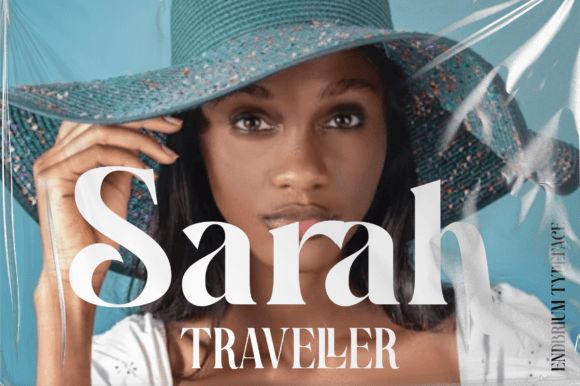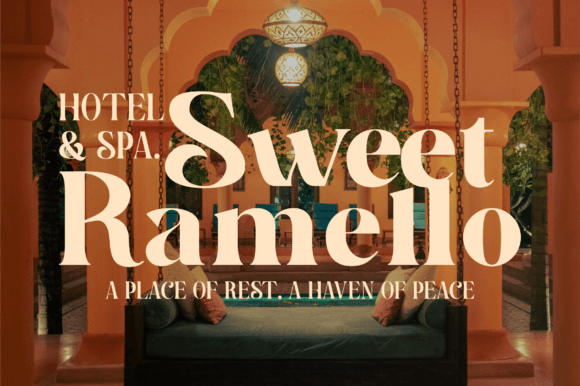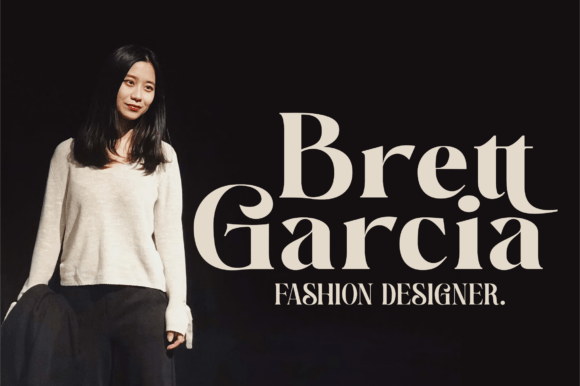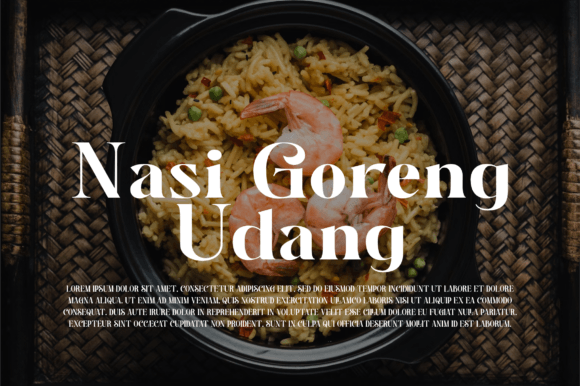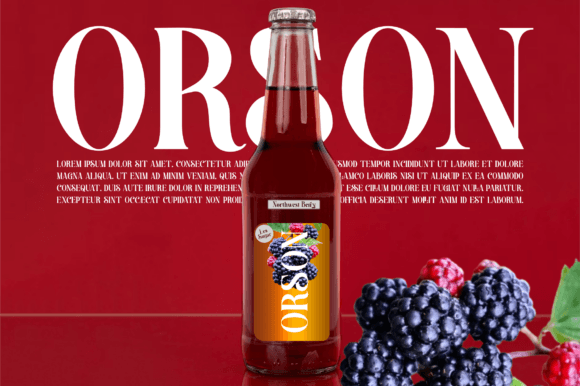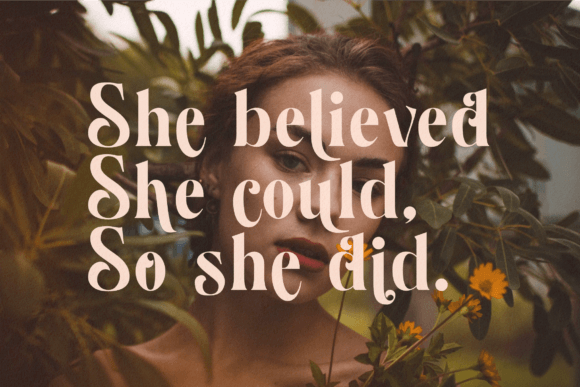
Introduction to Endbrium Font Font
Fonts play a crucial role in design, and the Endbrium Font font is a typeface that brings both character and versatility to any project. Whether you’re working on a branding project, a website, or a print design, the Endbrium Font font offers a unique style that can elevate your work.
Endbrium is a bold yet refined modern serif font, perfect for making a statement in any design.
Its elegant serifs and striking letterforms blend classic style with a modern touch With alternate letters and ligatures, it lets designers create unique, smooth typography.
The Endbrium Font font is more than just a typeface – it’s a design tool that helps you communicate your message with style and clarity. Its unique character set and versatile design make it suitable for a wide range of applications, from elegant invitations to bold headlines.
With its carefully crafted letterforms and balanced proportions, the Endbrium Font font ensures readability and visual appeal across all mediums.
What makes Endbrium Font font special?
The Endbrium Font font stands out with its unique design, exceptional readability, and versatility across various design applications.